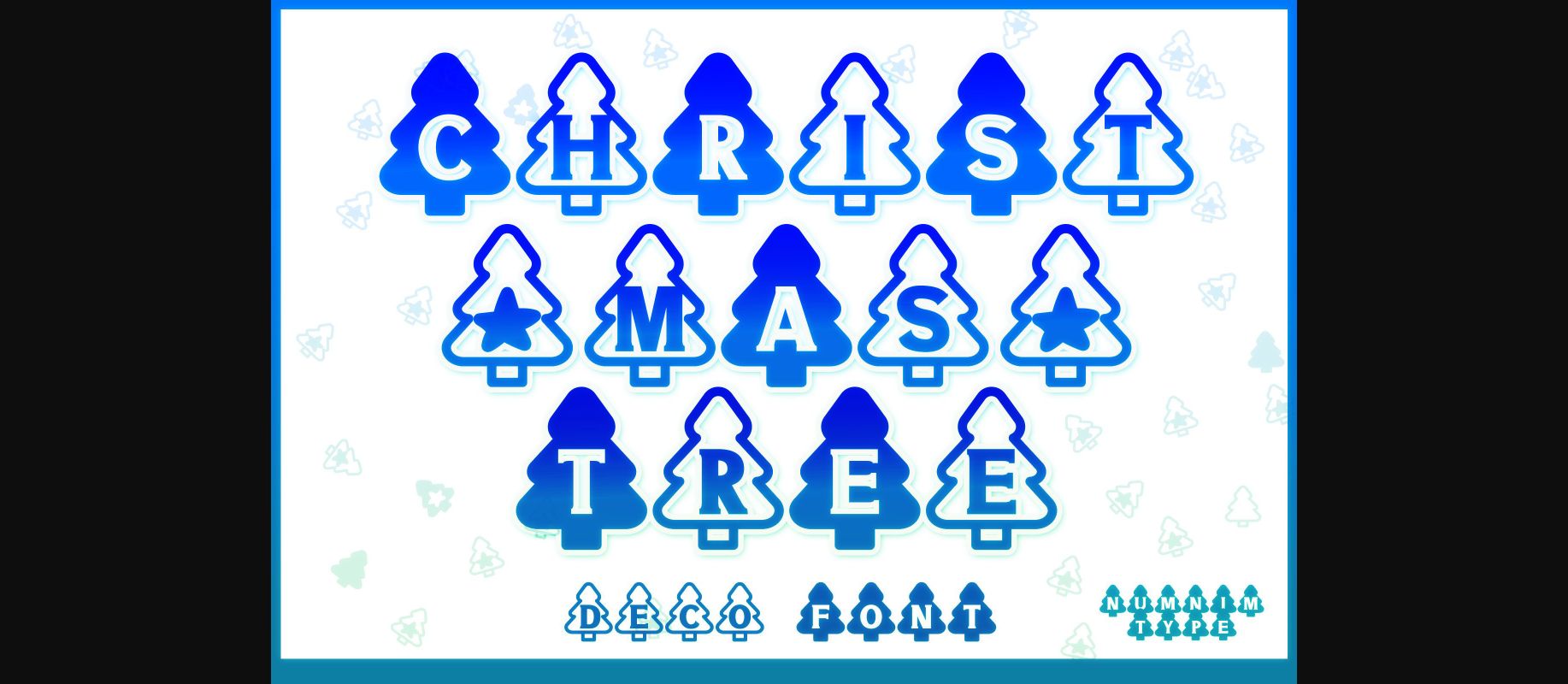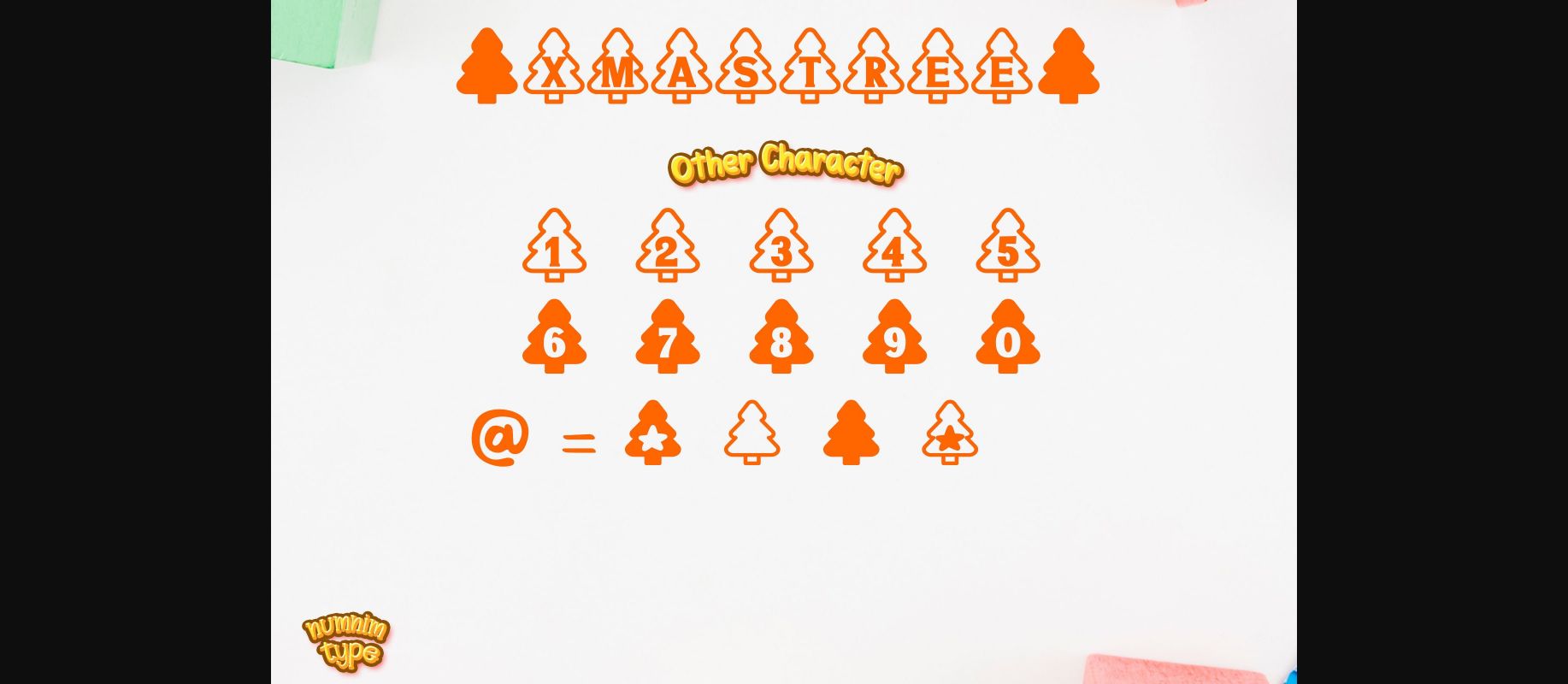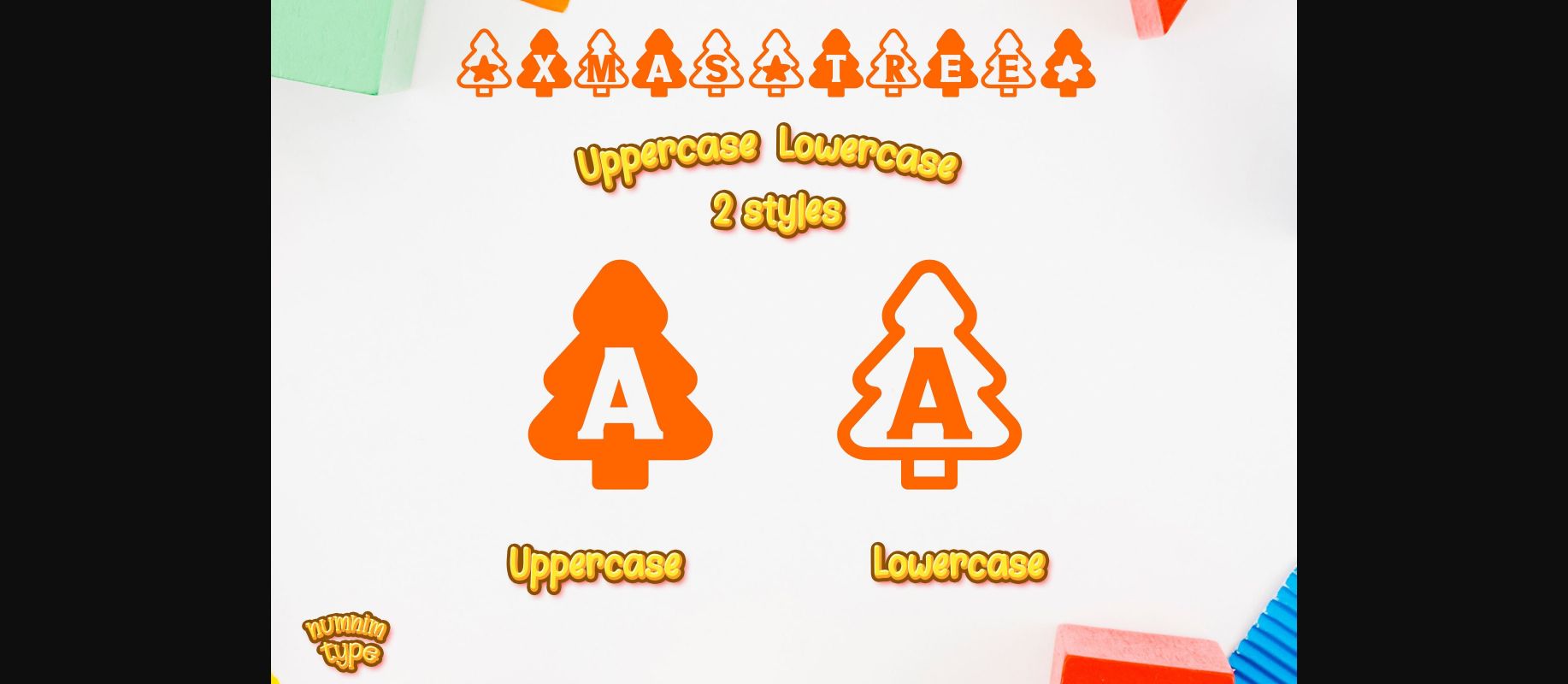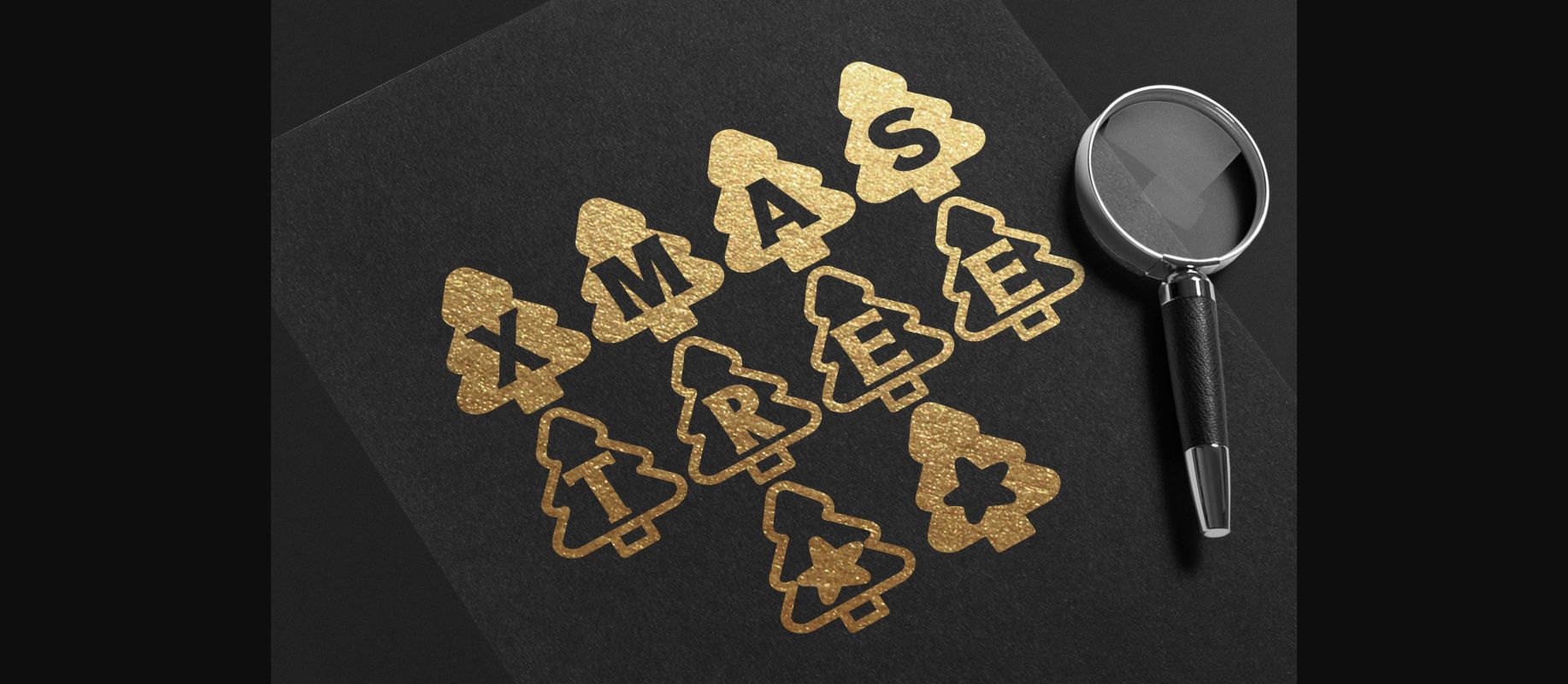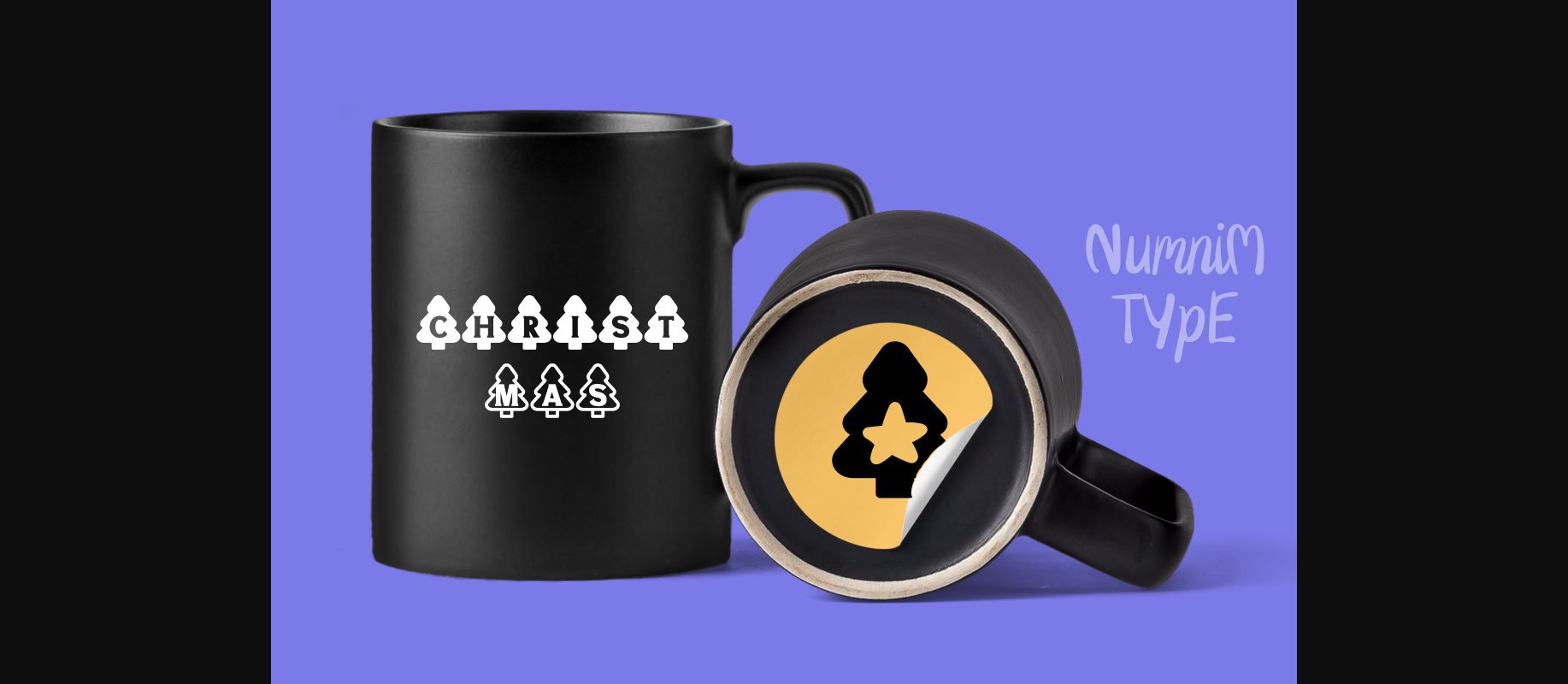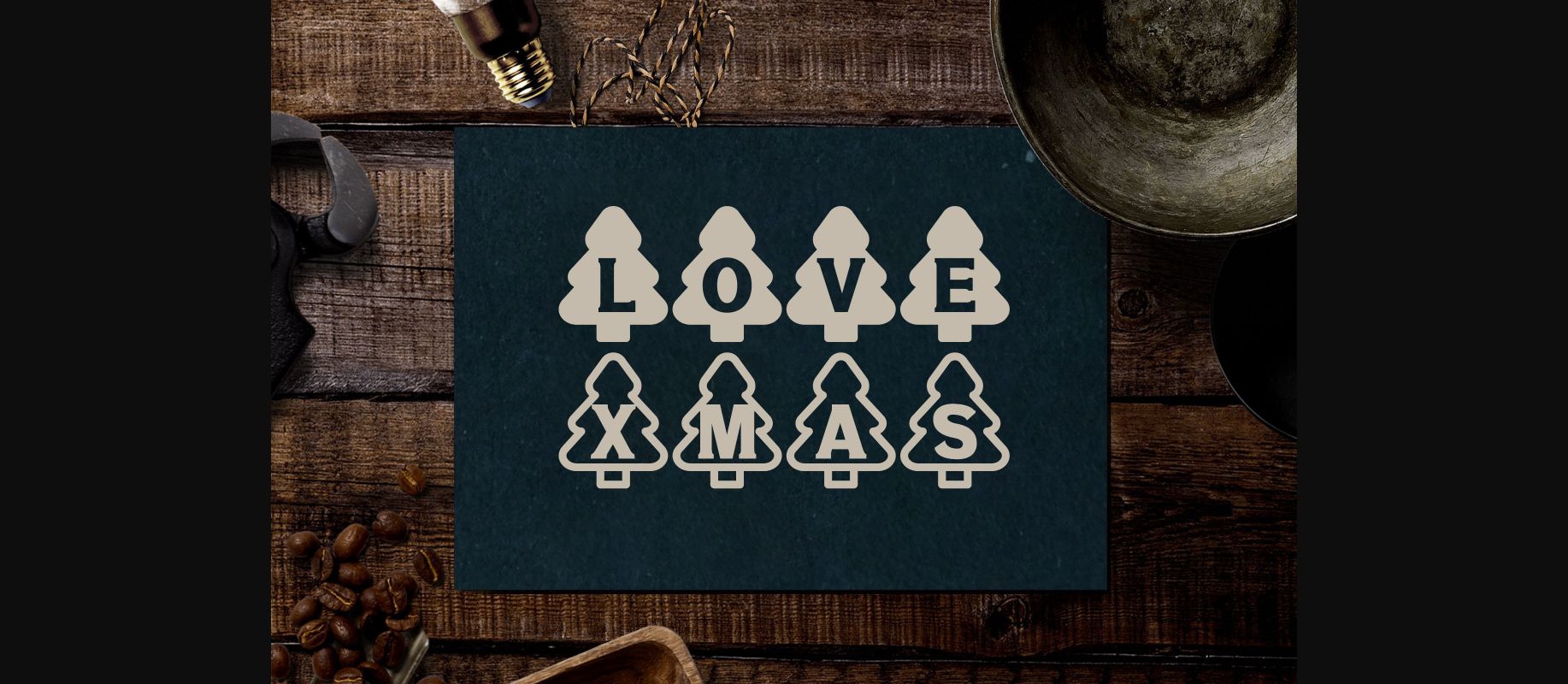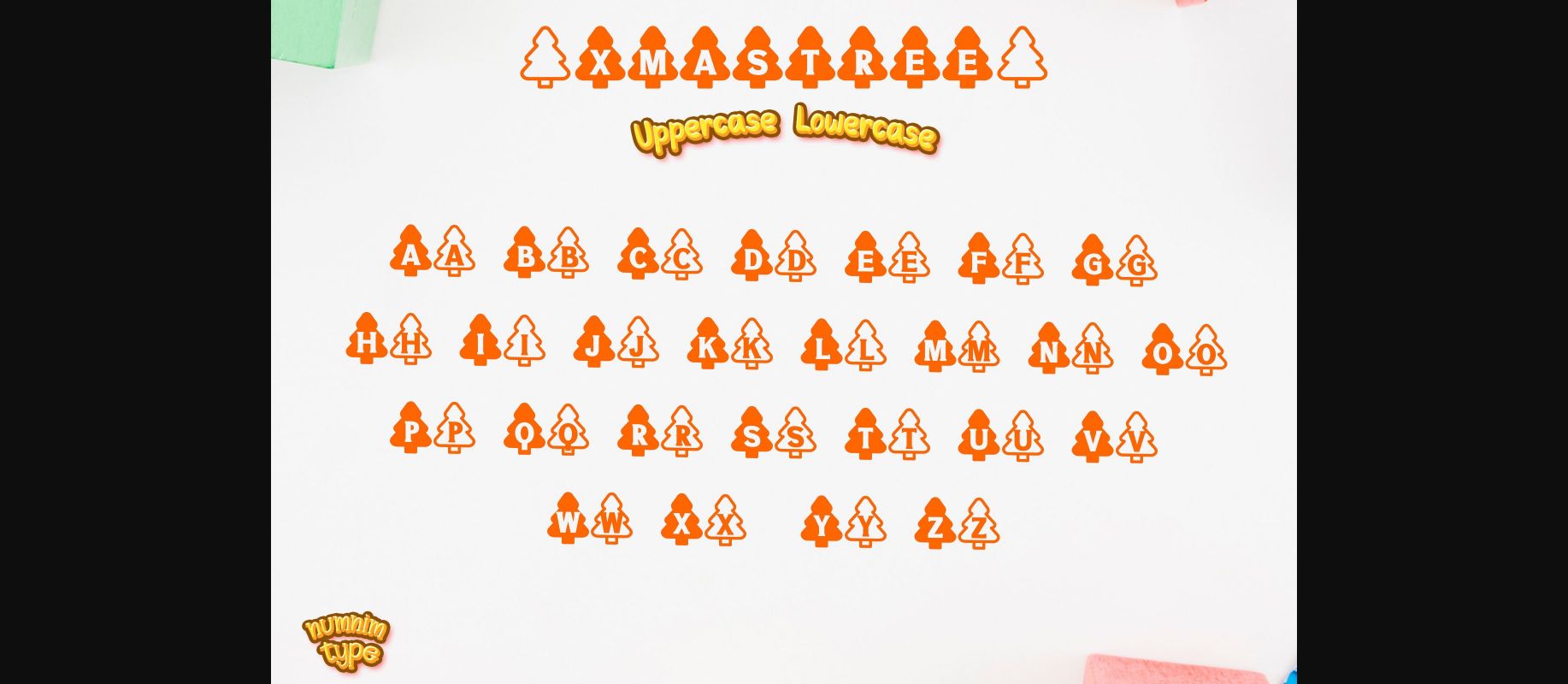
Christmas Tree Font
About Christmas Tree Font
Christmas Tree is a cool and uniquely crafted decorative font. Its fun and playful characters make it the perfect font for stickers, mugs, t-shirts, ornaments, Christmas day event cards, event invitations, and many more!